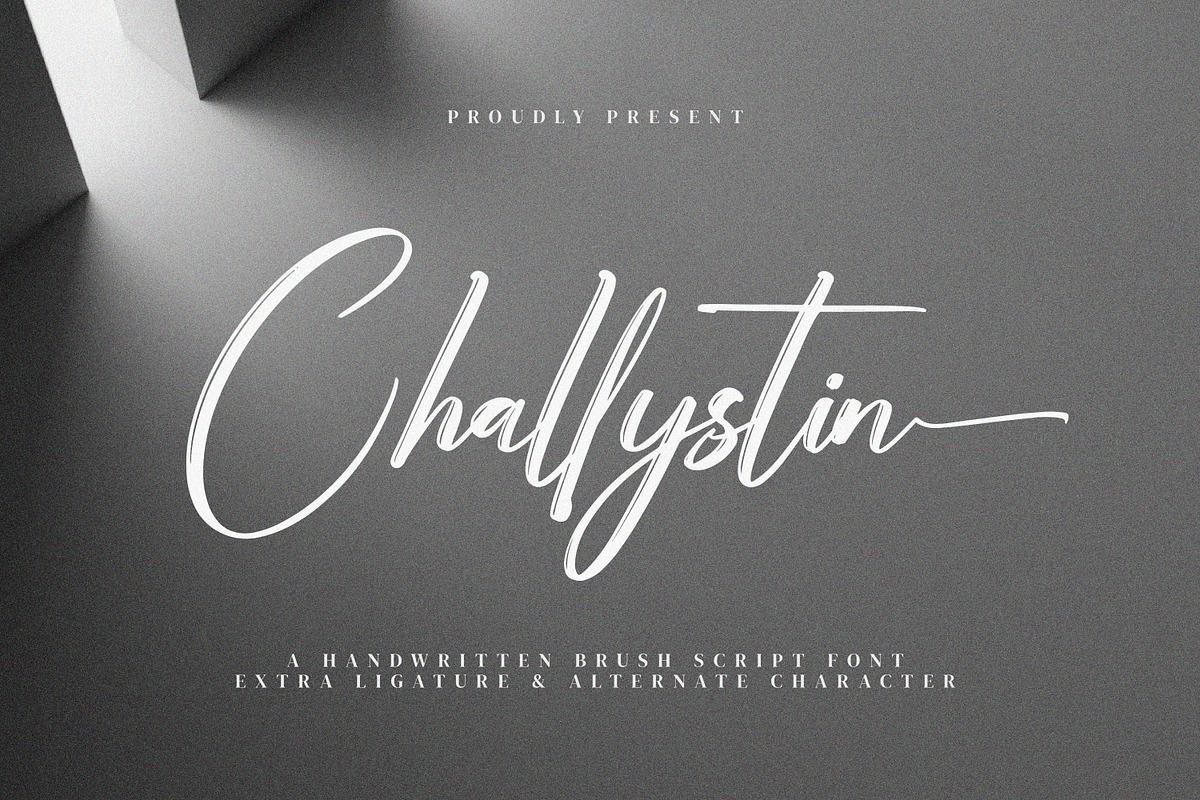
Challystin Font Free Download is a stylish handwritten script typeface that blends modern elegance with the softness of natural handwriting. With its smooth curves, flowing strokes, and signature-style charm, Challystin is perfect for wedding invitations, logos, personal branding, quotes, and lifestyle content.
Its graceful, organic feel brings warmth and sophistication to any design—whether digital or print. Ideal for fashion brands, feminine packaging, or heartfelt messaging, this font helps your words feel personal, polished, and timeless.
Designers love Challystin for its versatility and the emotional tone it adds to every project. Want to elevate your work with a refined handwritten touch? Download Challystin Font Free Download and let your typography express elegance, creativity, and heart.